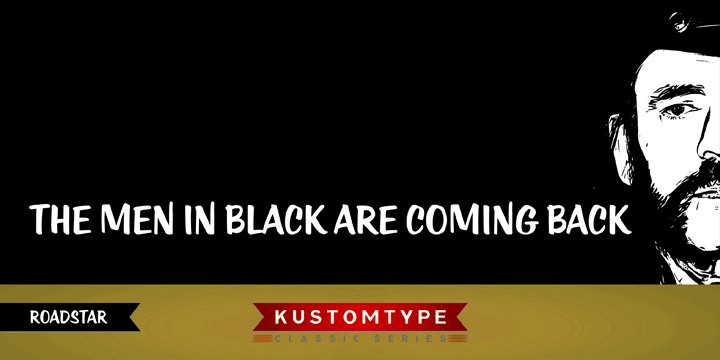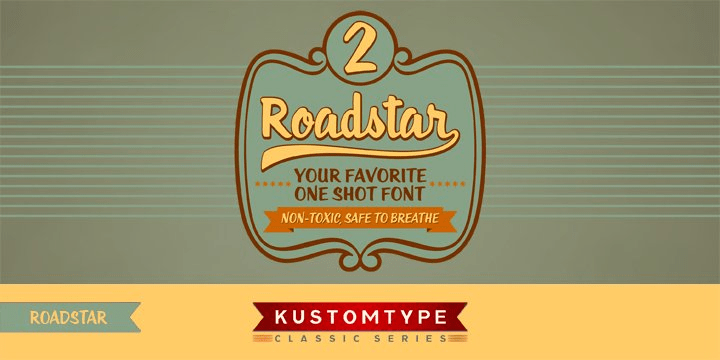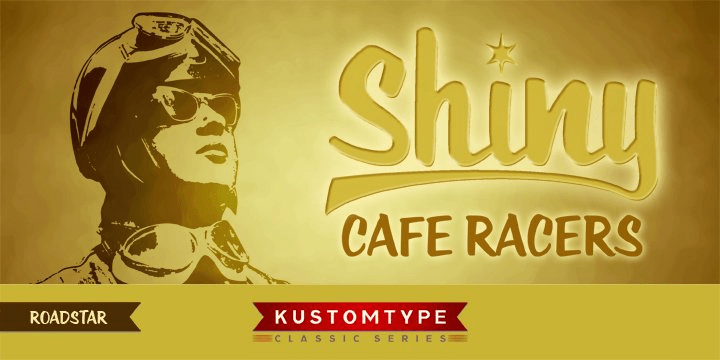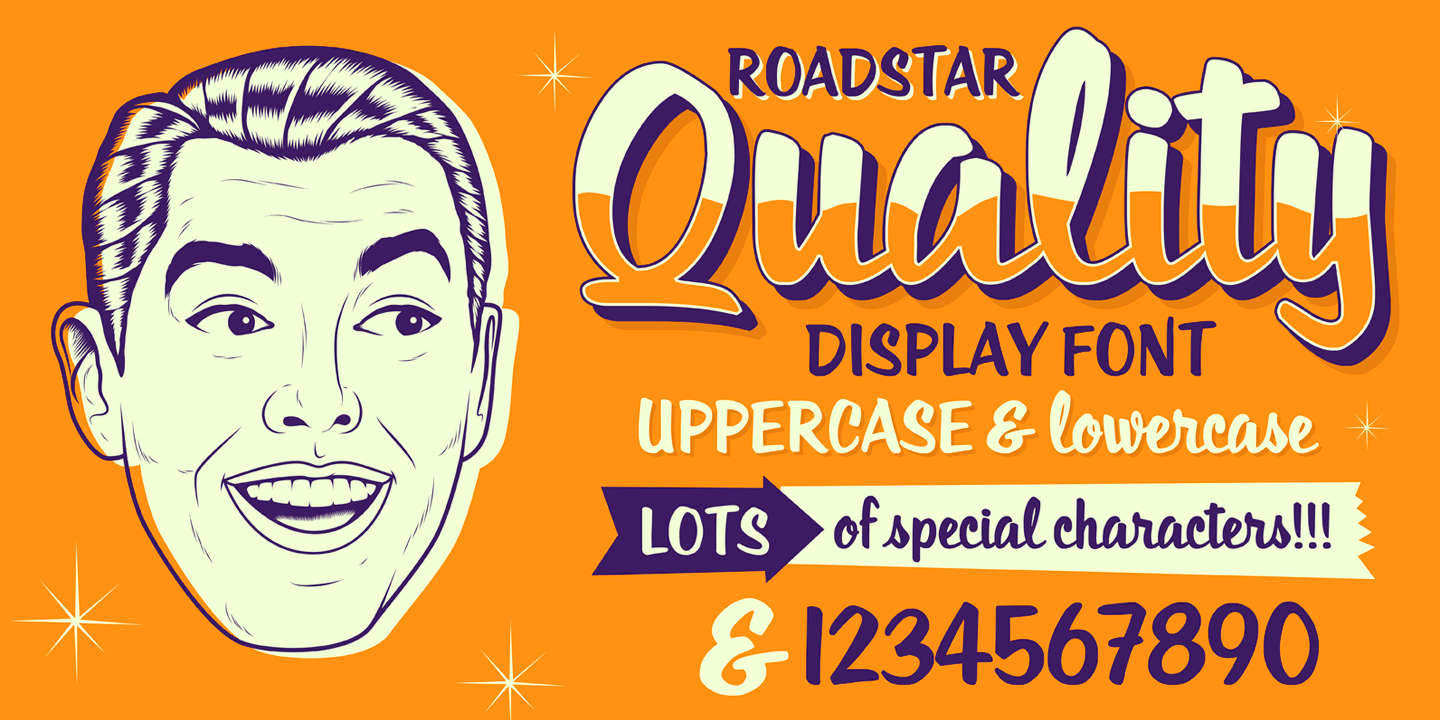
About Roadstar
Roadstar is a script designed in the style of the classic American advertising font from the 1940\’s-1950\’s. Roadstar is a retro brush-style script designed for logotype, packaging, posters, T-shirts, signage & design projects with a retro & vintage feel.…